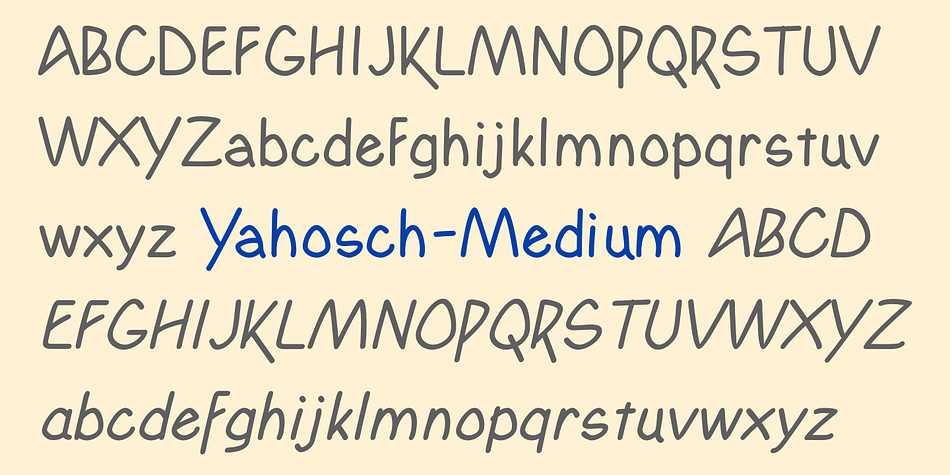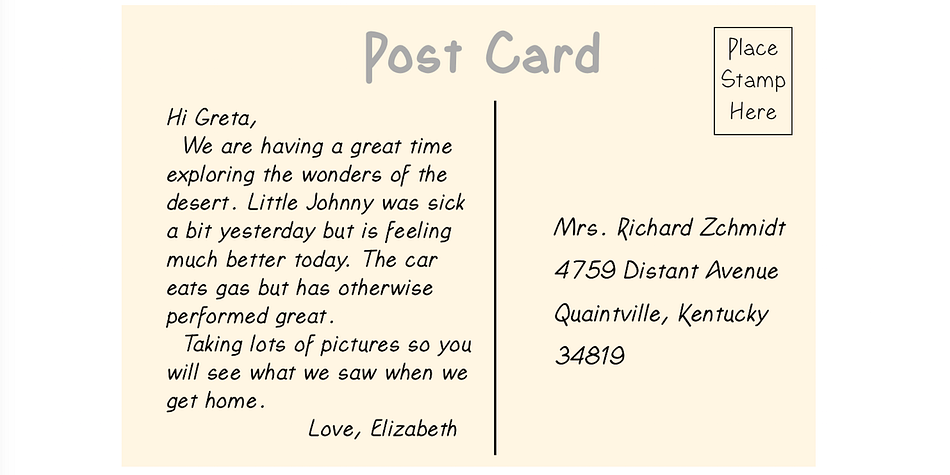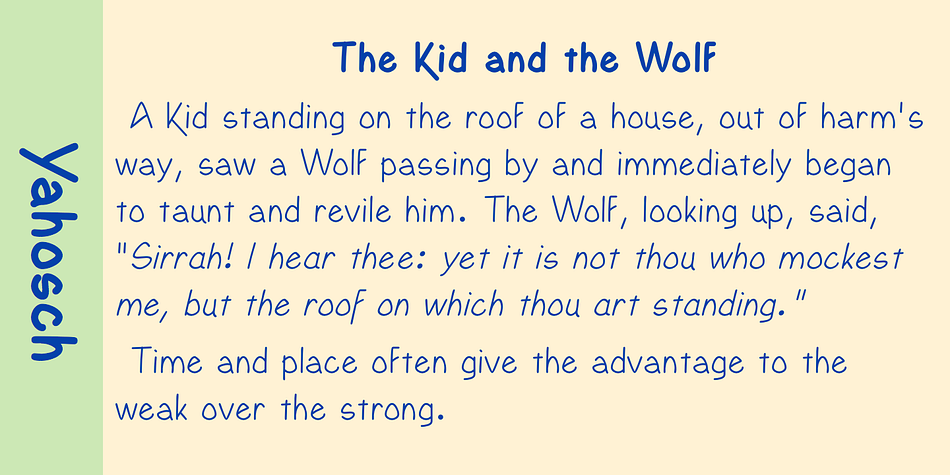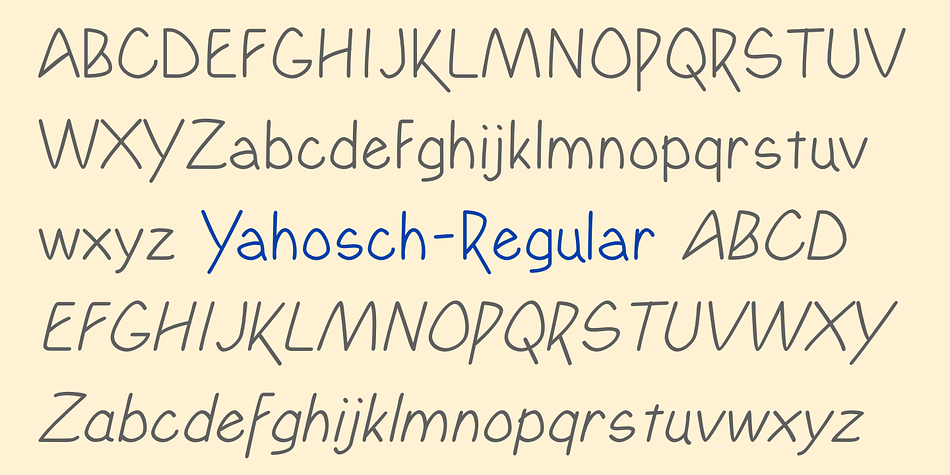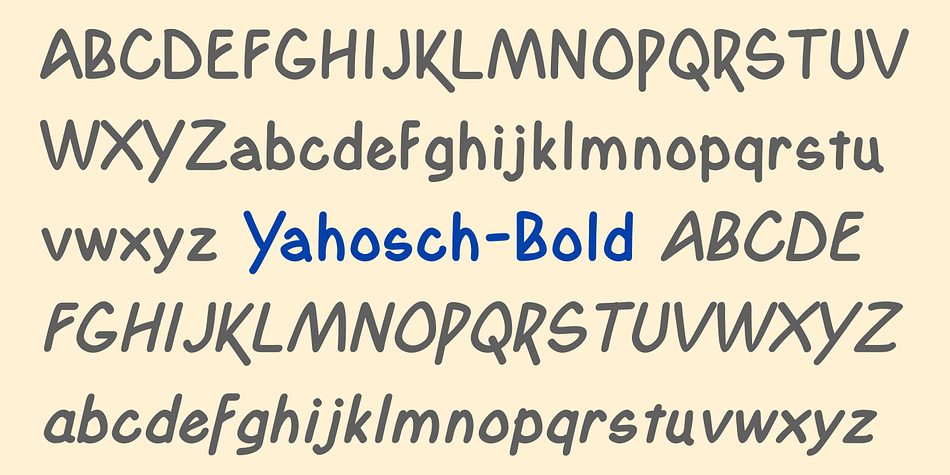
Designed by Robert Schenk, Yahosch is a hand drawn font family. This typeface has six styles and was published by Ingrimayne Type.
Yahosch replicates informal hand writing. The typeface is based on egg-shaped circular elements, with the larger part of the oval on the bottom. It comes in three weights, each with an italic style. The thin is very readable even at smaller point sizes where it appears much like neat hand printing.